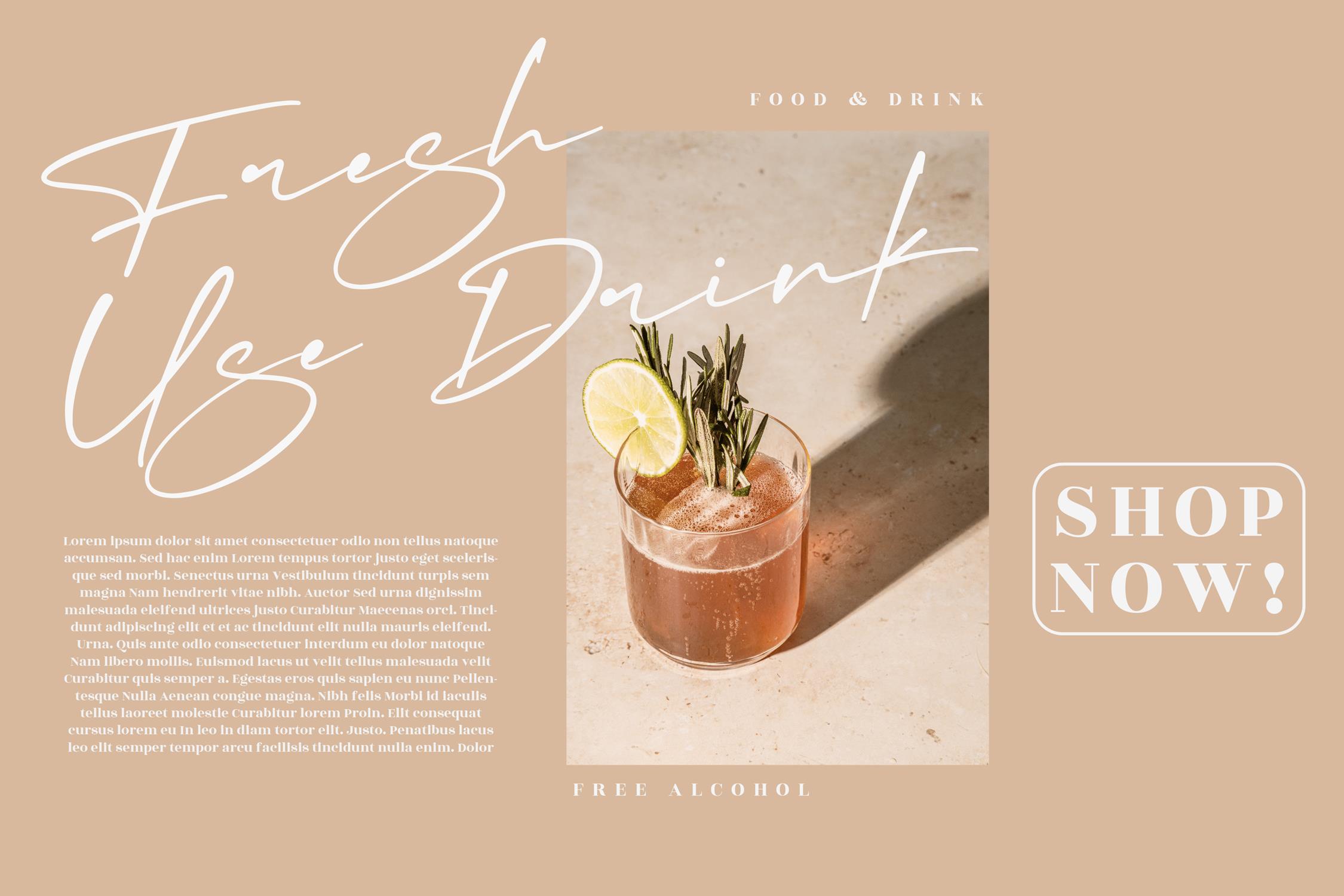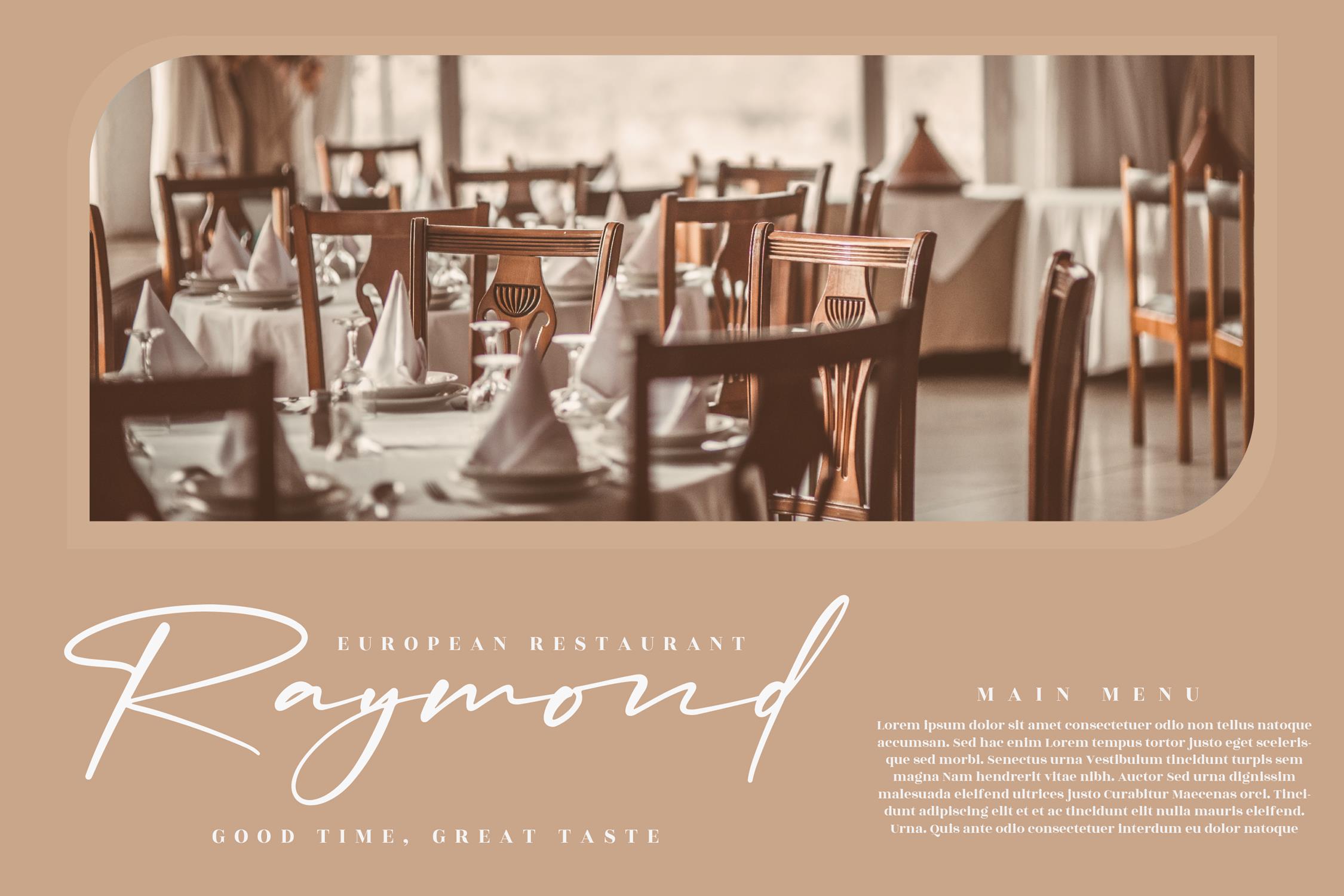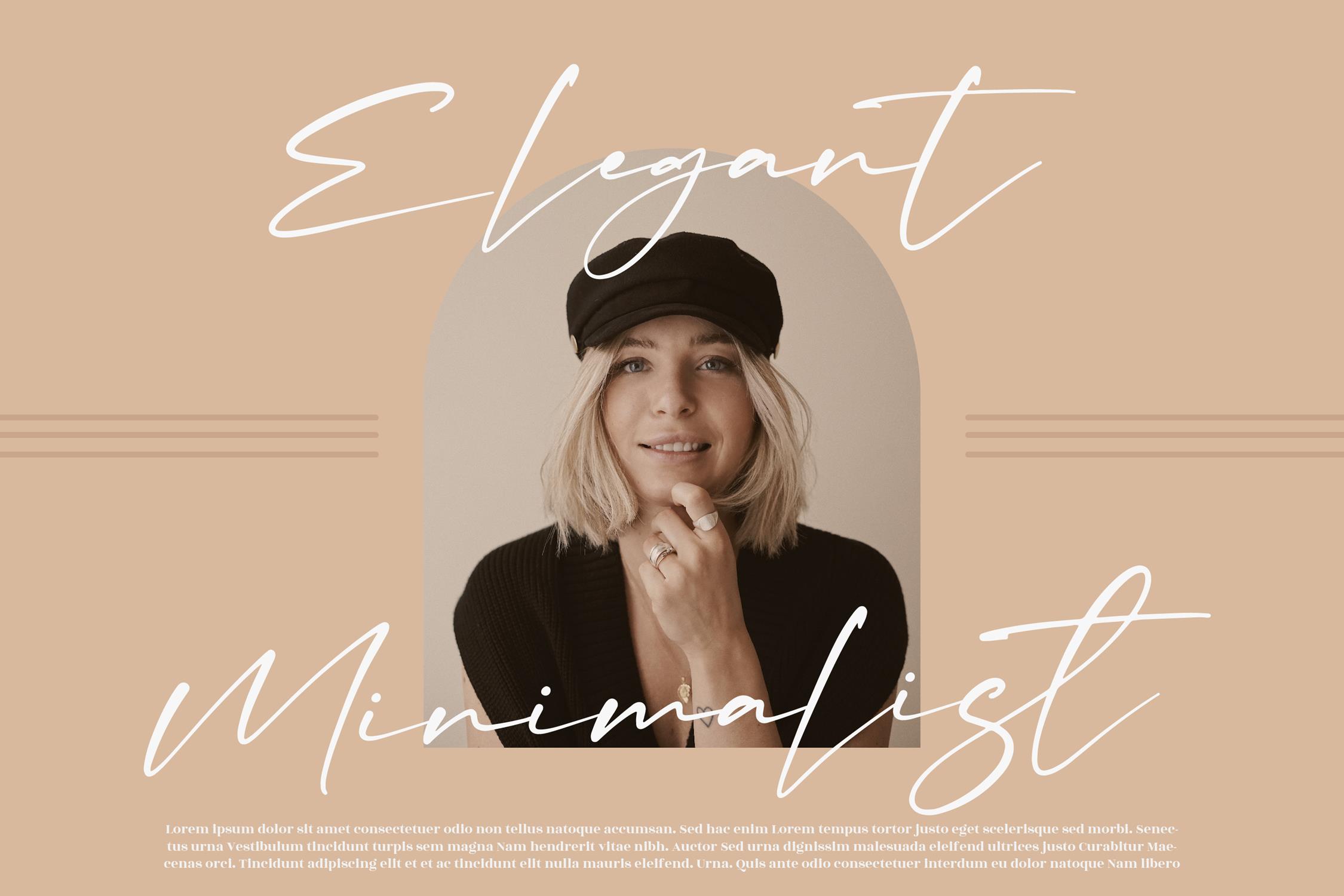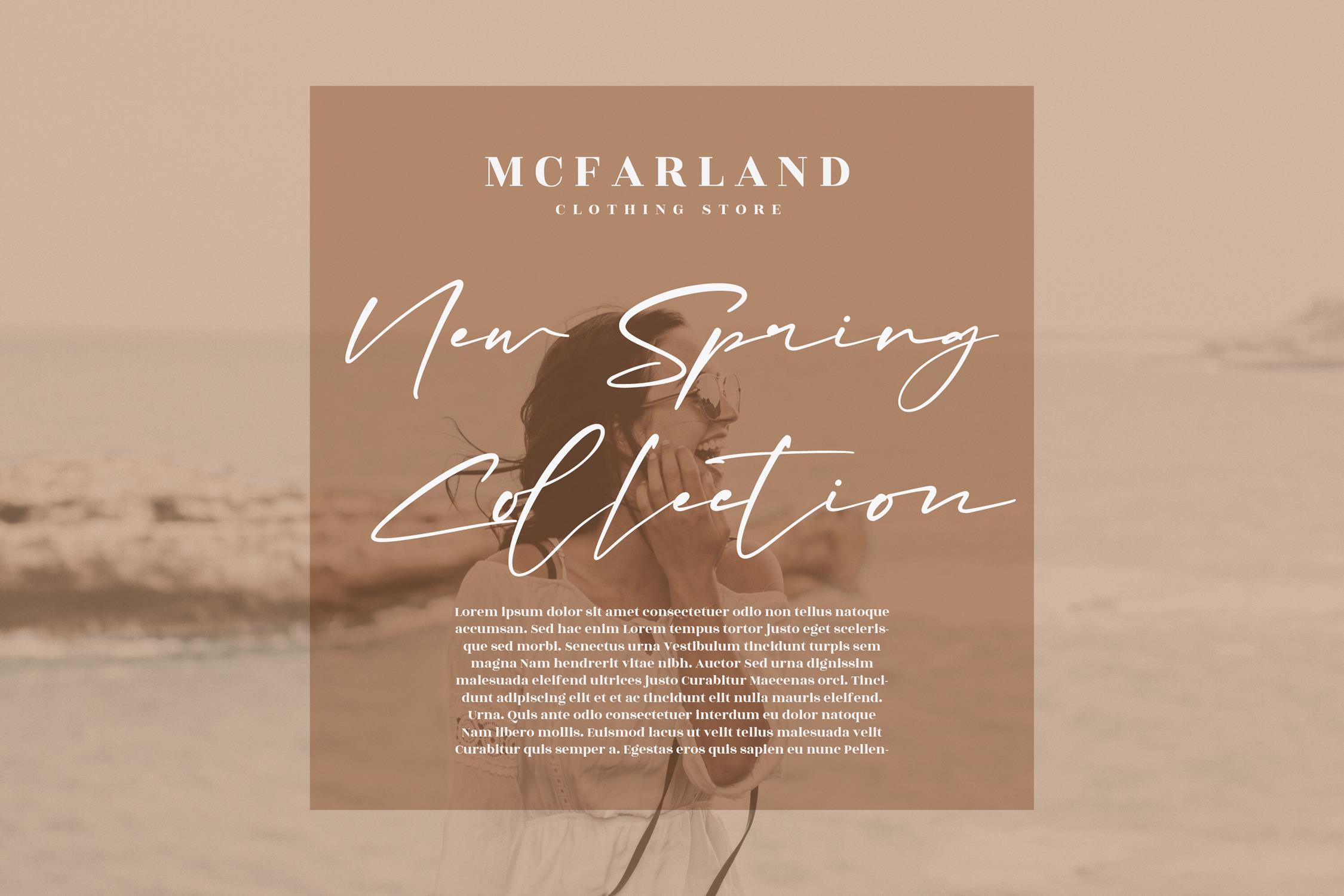
Patrick Amtesa Font
Patrick Amtesa – Modern Signature Font, from Afterpaper Studio, is a beautiful script font, suitable for any projects such as: logos, branding projects, homeware designs, product packaging, mugs, quotes, posters, shopping bags, t-shirts, book covers, name card, invitation cards, greeting cards, label, photography, watermark, special events, and all your other lovely projects that need a beautiful script taste.